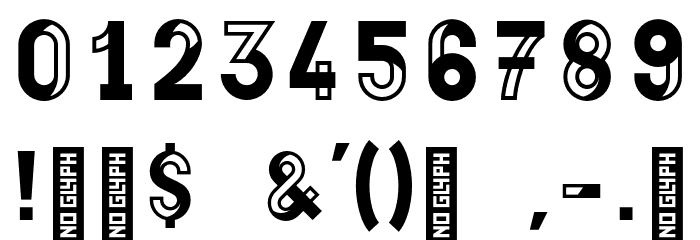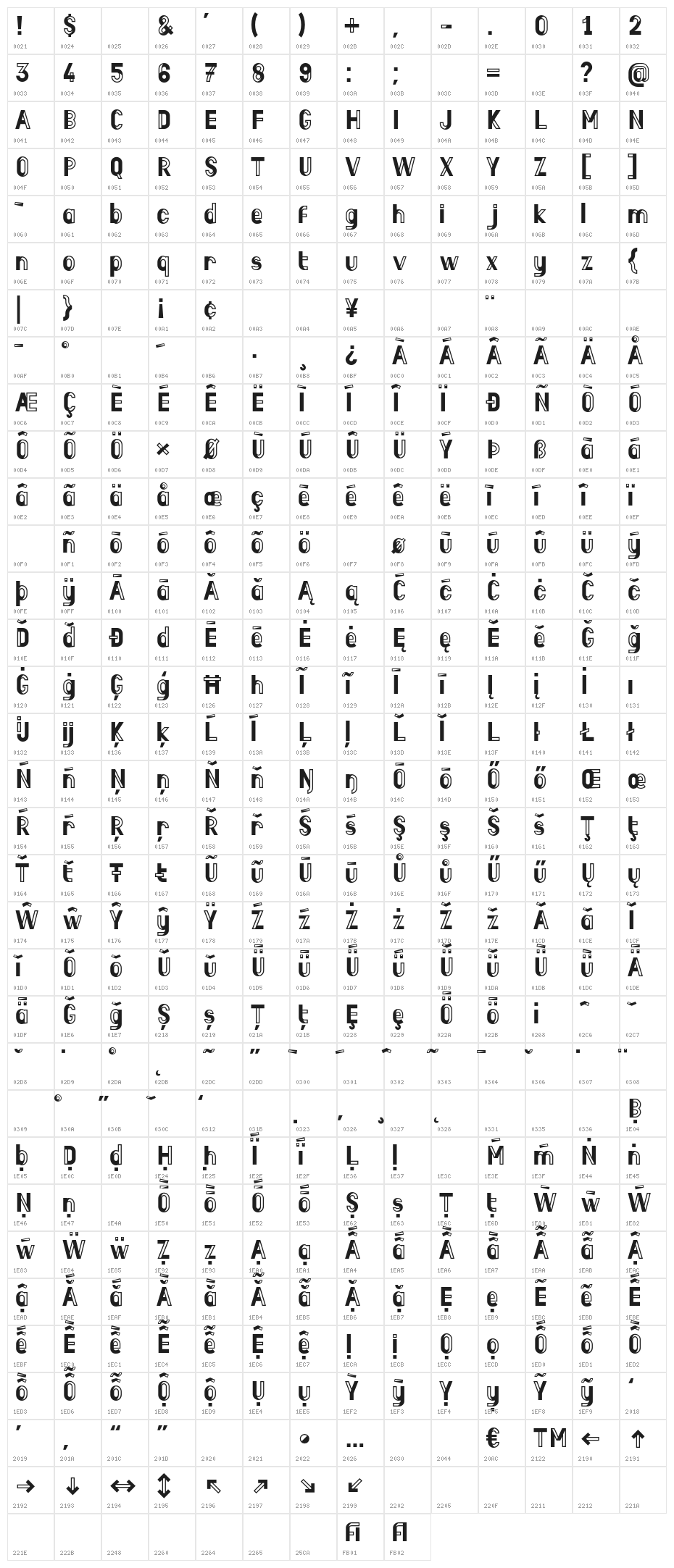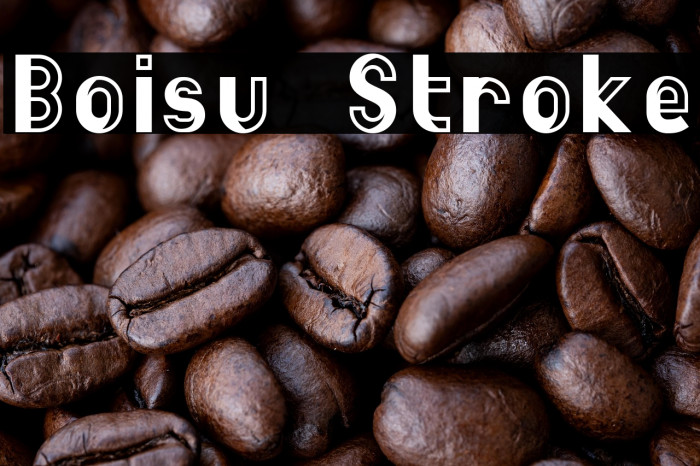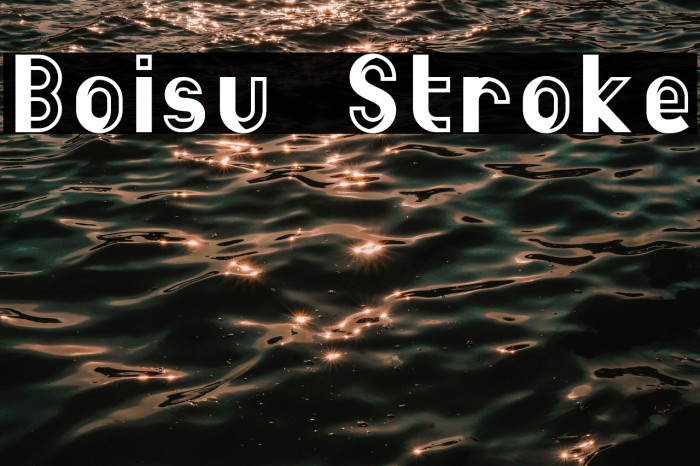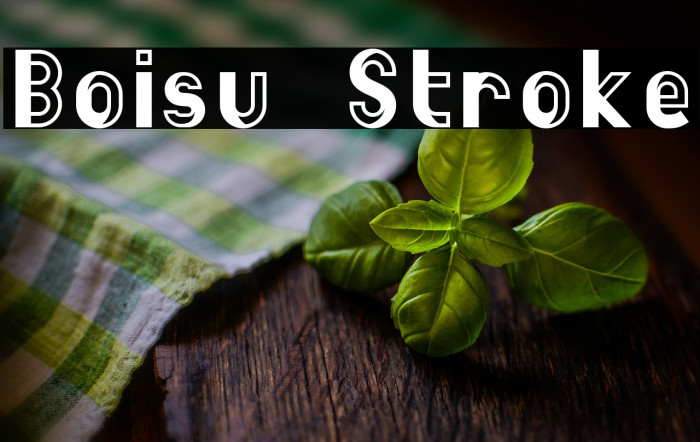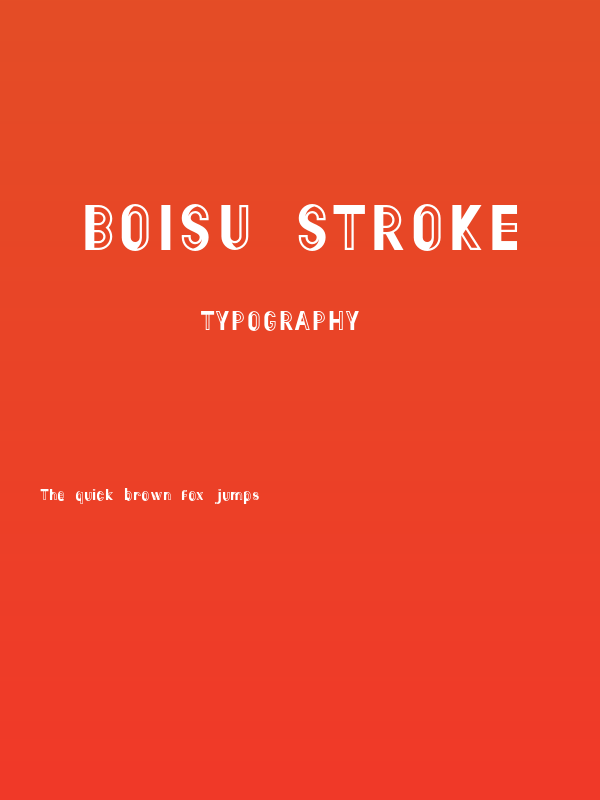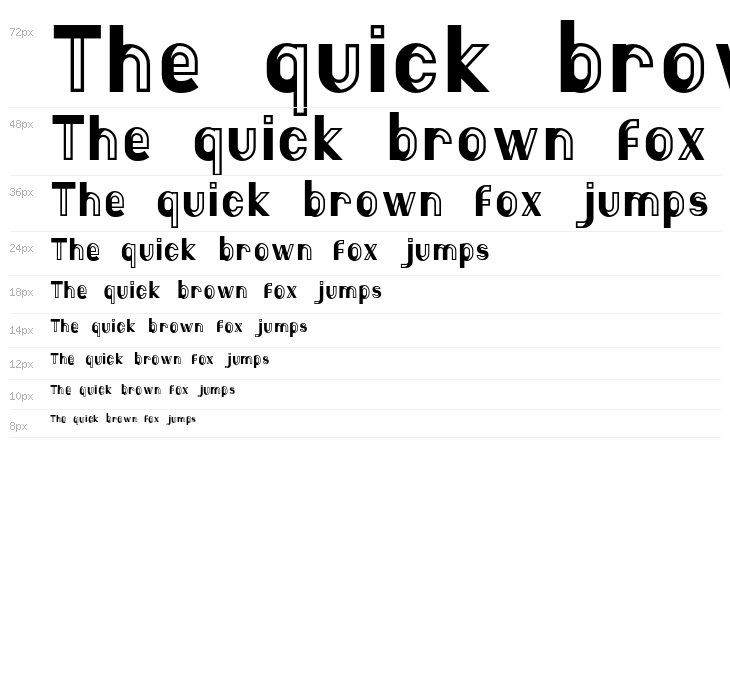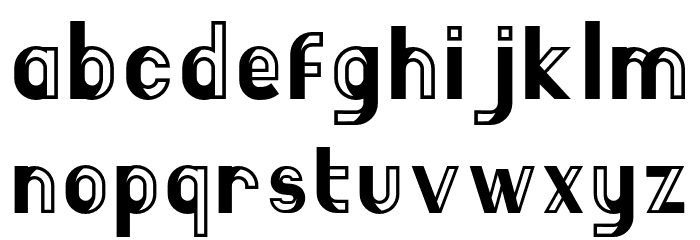
Boisu Stroke Font
Boisu Stroke Description
This font features a unique blend of bold and outlined characters, creating a striking visual impact. The uppercase letters are particularly distinctive, with some characters having a solid fill while others are outlined, giving a three-dimensional effect. The lowercase letters maintain a consistent style, with a mix of solid and outlined strokes that enhance readability while adding a creative flair. The numerals follow the same design principles, ensuring uniformity across the character set. Special characters are included, though some are marked as 'NO GLYPH', indicating missing designs. This font is ideal for projects that require a modern and edgy look, combining boldness with artistic outlines.
| Proposed Projects | Ideal for branding, posters, and headlines that require a modern and artistic touch. |